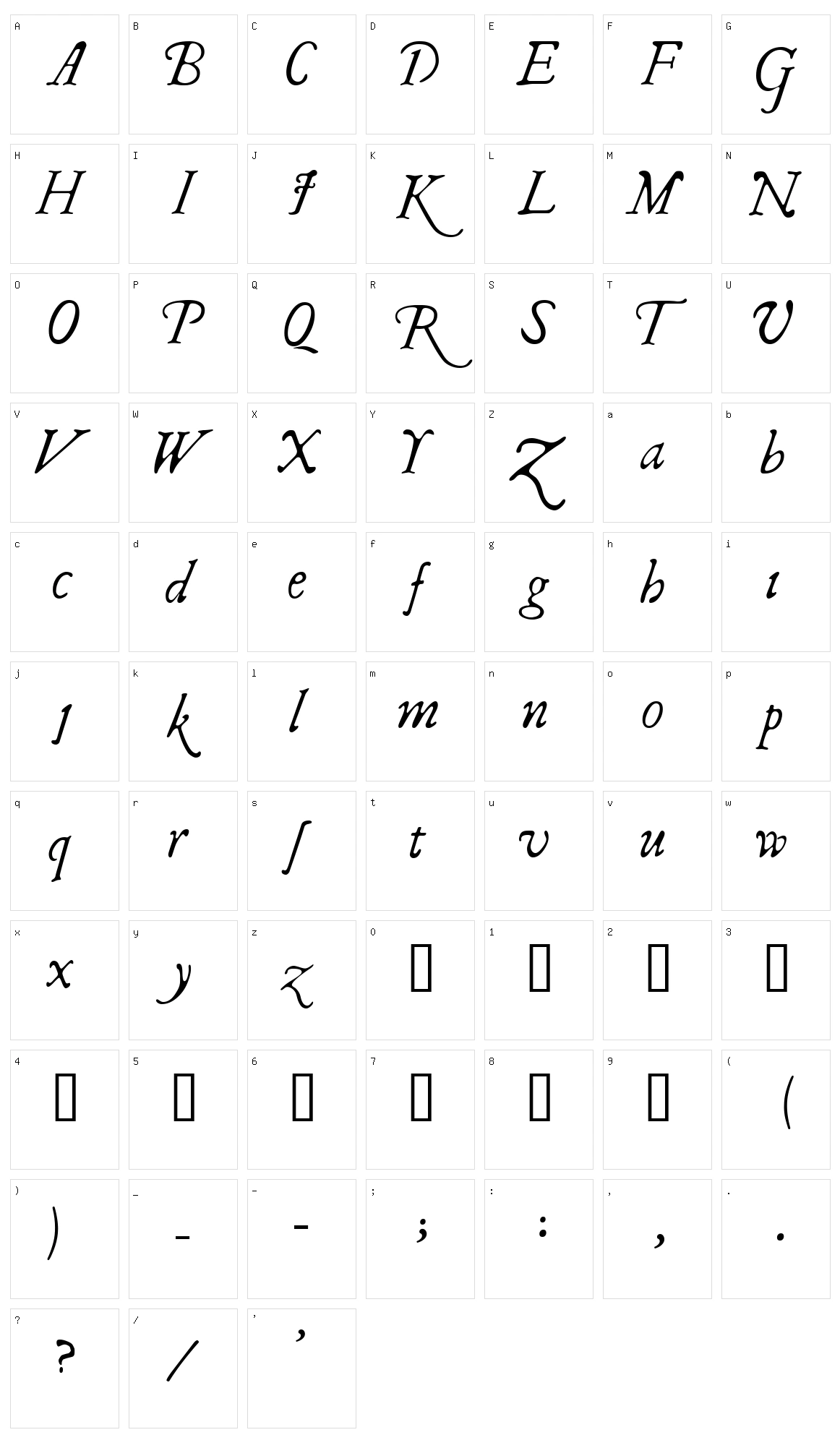
Il Shake Fest
The idea of a Folio Font:
This font is based on the First Folio of Shakespeare. It was designed
primarily from the main titles (there are several distinct differences
between titles, text, quotes, character names, etc.). It's a specialized
font for specific uses, but I think you'll find it enjoyable to have
available, particularly for creating the correct "feel" in an instantly
recognizable way for marketing materials for Shakespeare plays or other items
relating to the period.
The main structure of this font will work best for limited use (it's great
for display work, like the titles of the plays). In order to have a font
that had some additional value, however, we added some characters to aid in
its use for text. Because it was expected that the use would be mostly for
titles, it has a more oblique feel than most of the text in the folio and the
caps are a little fancy for straight text use (but close to the italics used
for songs or character names). It _does_ have enough available to work with
some body text.
Keep in mind that you have to know how the letters are used in order to make
this font work properly. It would be totally impractical to take a
manuscript and just select all and switch to ILShakeFest font (yes, that's
the name of it). The main problem you would have would be in the usage of
the letter "s" which should have an entirely different look based on the
position within the word, etc.
Scott Mann (a student at Illinois State University) did all the heavy lifting
on this font and created the bulk of it, while I added ligatures, alternate
characters, and some refinements.
The font contains all upper and lower case letters, plus period, comma,
colon, semi-colon, question-mark, parentheses, slash, hyphen and certain
special characters.
There are some special characters that I tried to place in easy-to-remember
locations for key strokes, as follows:
Three variations of the letter "s" for lower-case use
1. The "s" that looks like a long flourish is the standard lc "s"
2. The "s" that looks like an "s" is "option-s"
3. The "s" that looks like an "f" that extends over the next letter is
"Shift-option-s".
This works particularly well when followed by "t" or "i".
However, the "h" is too tall to work with that, so:
The "sh" that looks like "fh" is "option-h"
The "ct" with the little connecting flourish is "option-c"
There is also a alternate capital "A" with a leading flourish that is "option-a"
_____The use of the letter "s"______
This is a quick cheat, not meant to be authoritative (I haven't studied
this), but to allow for a close approximation.
No need to worry about upper case.
For an "s" at the end of a word, use #2, above (this includes instances
before an apostrophe, such as "is't".
For almost any other "s", use #1 if it's Title or italics, and use #3 if it's
straight text.
The exception seems to be with the double-ess. From my quick glance, I think
if in title or italics, use "1,2" and if straight text, use "3,3"
So, it is possible to take a document, change the font to "ILShakeFest" and
then use your word processor's search and replace function to:
1. Change all the "s" in the body text of the document from "s" to
"Shift-option-s", and then
2. Change all instances of "s space" and "s apostrophe" to "option-s space"
and "option-s apostrophe" respectively.
That should get you close.